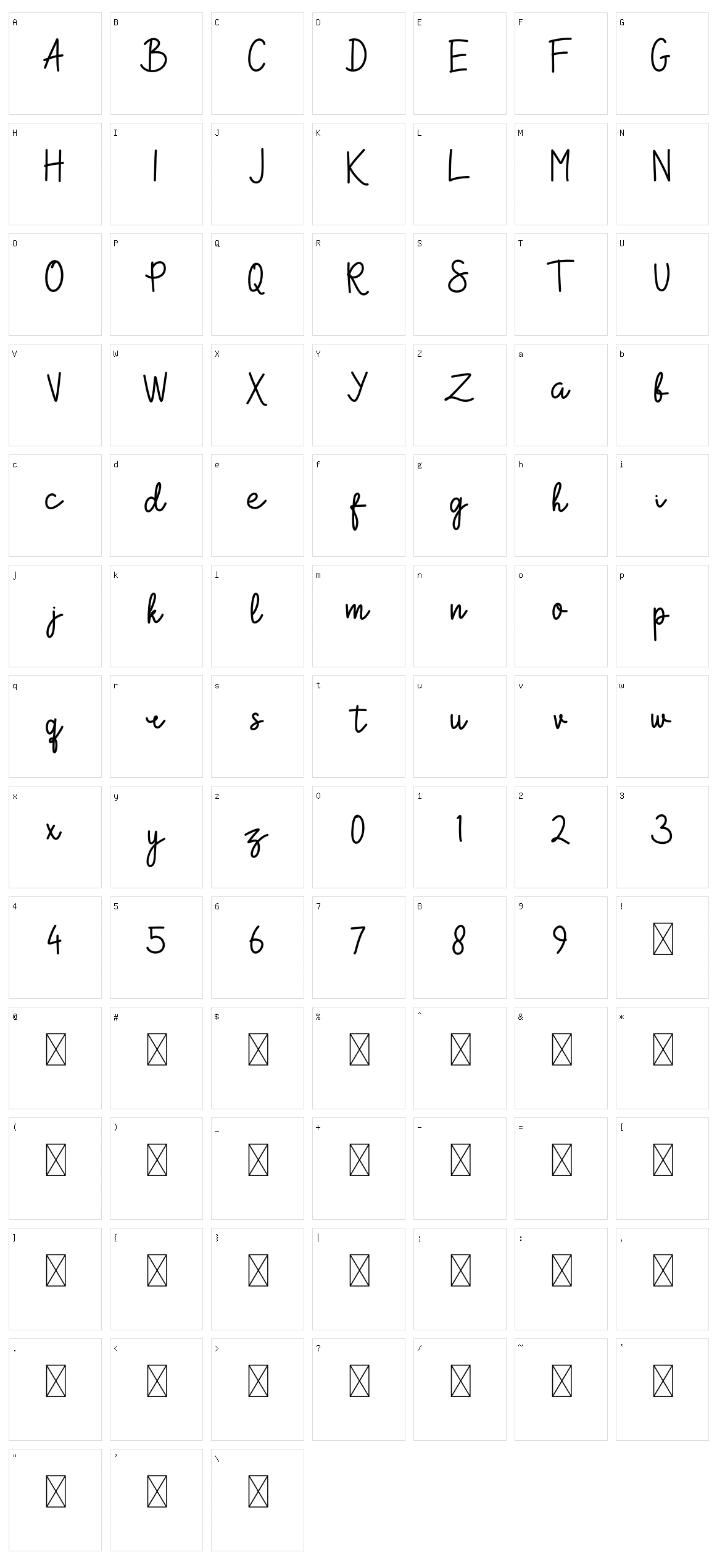
The free font Shakila Yasmin is carefully designed by Rizka Prayuda, showcasing a thoughtful balance of creativity and usability and falls under the Script font style. When you download the ZIP file, it contains only 29.76 KB of font files, making it lightweight and quick to download. Please review the license details below to understand permitted usage and distribution rights. If license information is not available, we recommend using this font for personal projects only or contacting the author directly for commercial usage permissions.